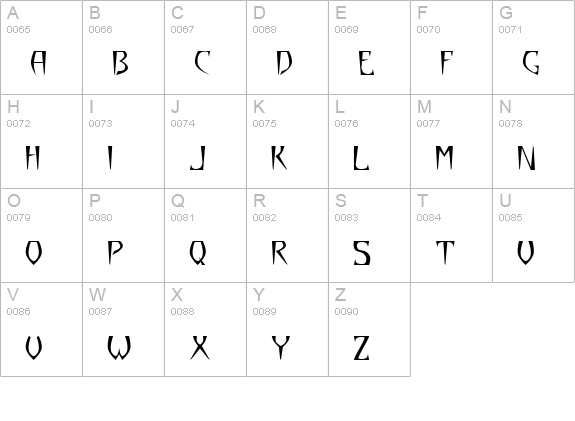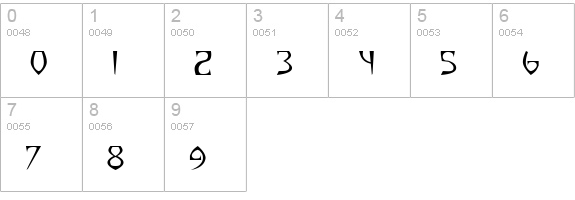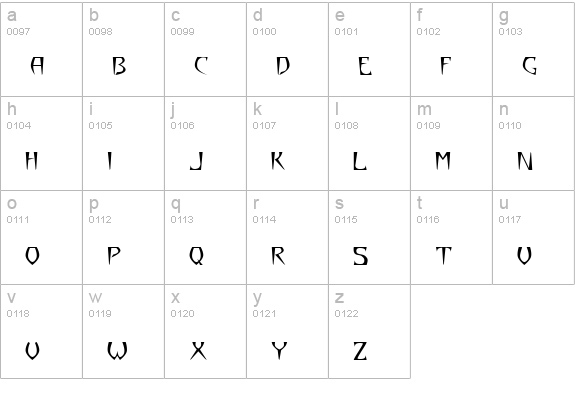
Introducing Yazata™ font, a stunning display typeface that exudes elegance and sophistication. This versatile font features sleek lines and stylish curves, making it perfect for a wide range of design projects. Whether you're creating invitations, branding materials, or social media graphics, Yazata™ font is sure to make a lasting impression. The best part? Yazata™ font is completely free to download at FontsMarket.com. That's right, you can elevate your designs with this exquisite font without spending a dime. Don't miss out on the opportunity to add Yazata™ font to your collection today and unleash your creativity with this beautiful typeface.